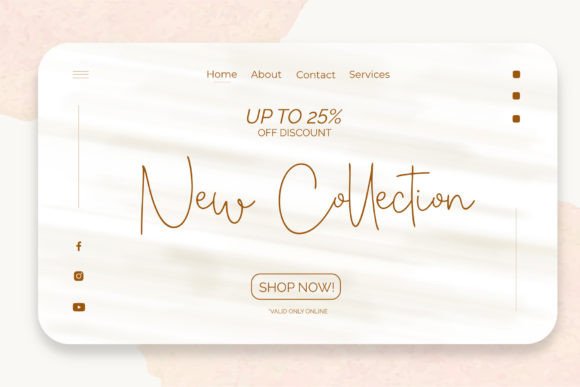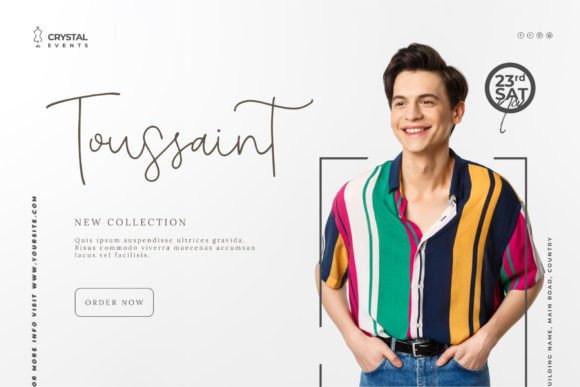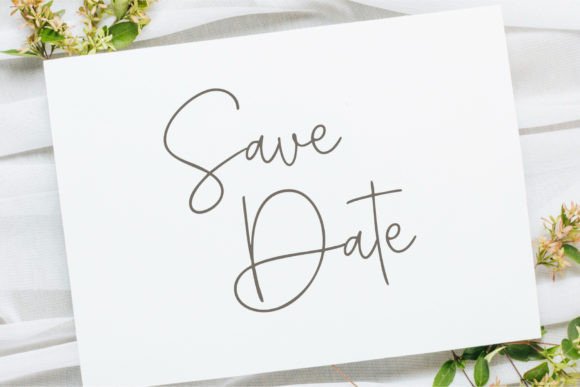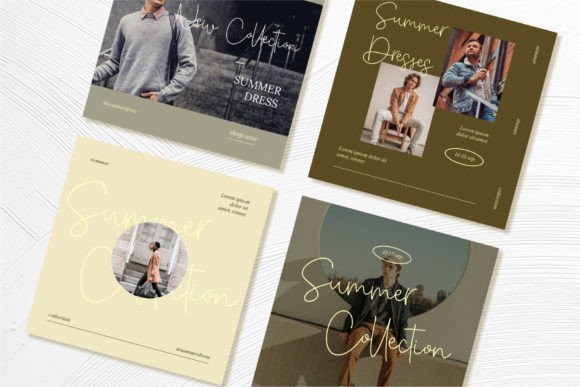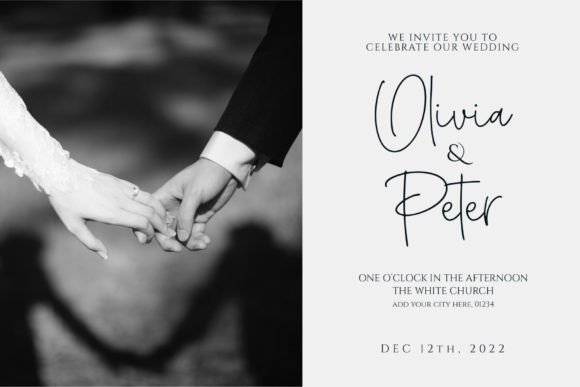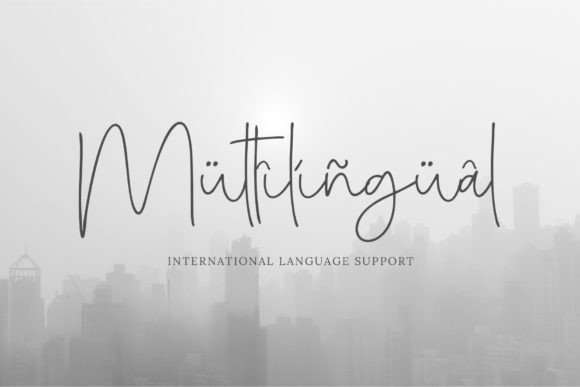
Introducing Amichan Font: The Elegant Monoline Typeface for Creative Projects
Have you ever been in the middle of a design project, and suddenly, you just can’t seem to find the perfect font? I recall a particularly frustrating experience while working on a wedding invitation design. My client wanted an elegant, modern look that would reflect the couple’s sophisticated style. After hours of scouring through font libraries, I stumbled upon “Amichan” – a beautiful monoline typeface that instantly elevated the design.
Amichan is more than just a pretty font; it’s a versatile tool perfect for websites, modern logos, brand identities, social media, quotes, weddings, and any creative project that demands a touch of sophistication. In this article, we’ll dive into the world of Amichan, exploring its features, uses, and what makes it a standout choice for designers, crafters, and creative hobbyists.
An Honest Review of Amichan Font
What I Love About Amichan ✨
- ✅ Elegant and beautiful monoline design
- ✅ Highly versatile for various design projects
- ✅ Easy to read, even in smaller sizes
- ✅ Supports multiple languages
While Amichan is an excellent font, it’s not without its quirks. For instance:
- 🤔 It might not be the best choice for body text due to its elegant, yet somewhat delicate design.
- ⚠️ Some users might find the font a bit too similar to others in the monoline category.
One of the standout features of Amichan is its support for OpenType features and glyphs. These allow for a high degree of customization, enabling designers to:
- Add swashes and stylistic alternates to enhance text
- Access a range of glyphs for creative typography
- Adjust kerning and line spacing for optimal readability
The Backstory of Amichan Font
The story behind Amichan’s creation is one of passion and dedication. Designed with the intention of creating a beautiful, elegant typeface for creative projects, Amichan has quickly become a favorite among designers. While the exact details of its creation are not well-documented, it’s clear that the designer aimed to craft a font that would inspire creativity and elevate designs.
Q: What makes Amichan suitable for logos and branding?
A: Amichan’s elegant and modern design makes it perfect for creating sophisticated logos and brand identities.
Q: Is Amichan available in multiple languages?
A: Yes, Amichan supports multiple languages, making it a versatile choice for global designs.
Q: Can I use Amichan for personal projects, like wedding invitations?
A: Absolutely! Amichan’s elegant design makes it perfect for personal projects, such as wedding invitations and social media graphics.